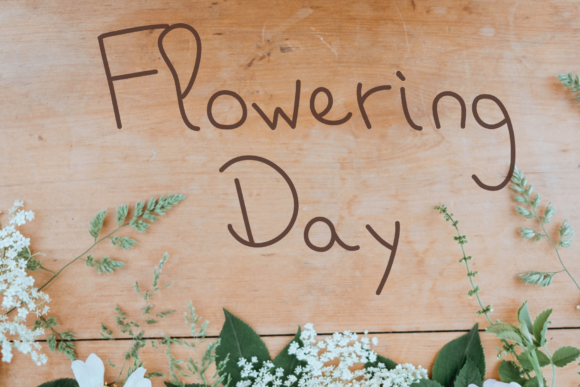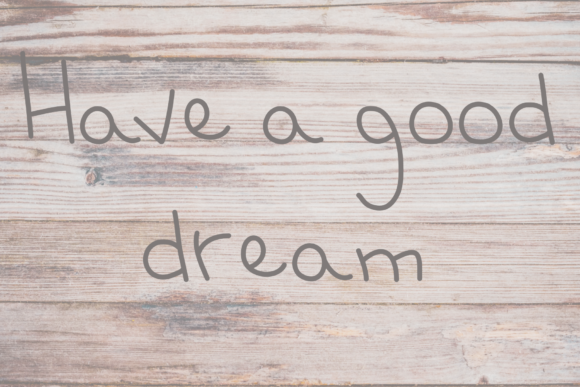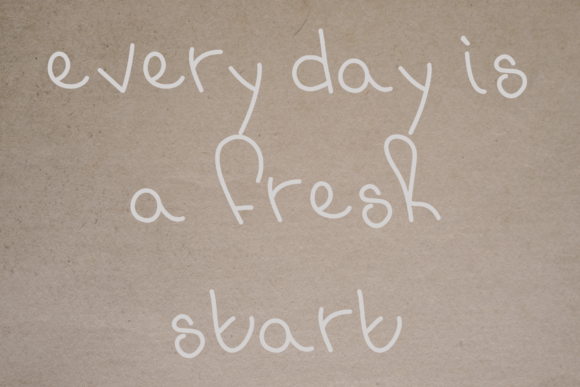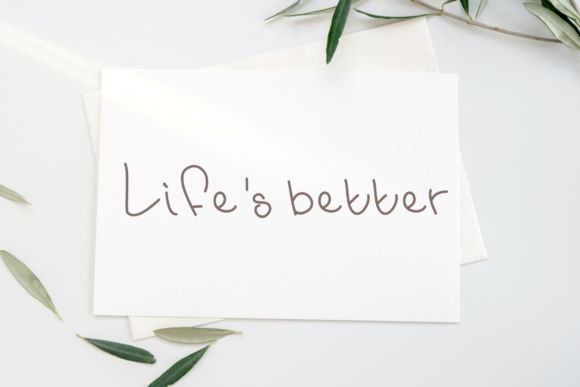
Introducing Farmhouse Design Font: A Sweet and Dainty Handwritten Font
Are you a designer or crafter looking for a font that can add a touch of warmth and personality to your projects? Look no further than the Farmhouse Design Font! This beautiful handwritten font is perfect for creating a variety of designs, from rustic and country-themed projects to more modern and elegant ones. In this article, we’ll take a closer look at the Farmhouse Design Font and explore its features, uses, and benefits.
A Sweet and Dainty Handwritten Font
Farmhouse Design Font is a sweet and dainty handwritten font that is designed to add a touch of elegance and sophistication to your projects. Its gentle and flowing lines make it perfect for creating a variety of designs, from invitations and greeting cards to blog posts and social media graphics. The font’s unique and charming style is sure to capture the attention of your audience and leave a lasting impression.
Perfect for a Variety of Design Ideas
One of the best things about Farmhouse Design Font is its versatility. This font can be used on a wide range of design ideas, from rustic and country-themed projects to more modern and elegant ones. Whether you’re creating a logo, a brochure, or a social media graphic, Farmhouse Design Font is sure to add a touch of personality and style to your design. Some popular design ideas that this font is well-suited for include:
- Rustic and country-themed designs, such as farmhouse-style signs and invitations
- Wedding and event designs, such as invitations, programs, and place cards
- Blog posts and social media graphics, such as quotes and inspirational messages
- Branding and packaging designs, such as logos and product labels
Adds a Joyful and Romantic Touch
Farmhouse Design Font is designed to add a joyful and romantic touch to your projects. Its sweet and dainty style is sure to evoke feelings of warmth and happiness, making it perfect for creating designs that are meant to inspire and uplift. Whether you’re creating a design for a special occasion or just want to add a touch of personality to your everyday projects, Farmhouse Design Font is the perfect choice.
Farmhouse Design Font offers a range of features and benefits that make it a great choice for designers and crafters. Some of its key features include:
- Handwritten style with gentle and flowing lines
- Versatile and can be used on a wide range of design ideas
- Perfect for creating rustic and country-themed designs, as well as modern and elegant ones
- Adds a joyful and romantic touch to your projects
Tips for Using Farmhouse Design Font
Here are a few tips for using Farmhouse Design Font in your designs:
- Use it as a headline font to add a touch of personality and style to your design
- Pair it with other fonts to create a unique and interesting contrast
- Use it to create a sense of warmth and coziness in your design
Farmhouse Design Font is a beautiful and versatile handwritten font that is perfect for designers and crafters. Its sweet and dainty style makes it ideal for creating a variety of designs, from rustic and country-themed projects to more modern and elegant ones. With its range of features and benefits, Farmhouse Design Font is sure to become a favorite in your design arsenal. So why wait? Download Farmhouse Design Font today and start adding a touch of personality and style to your designs!